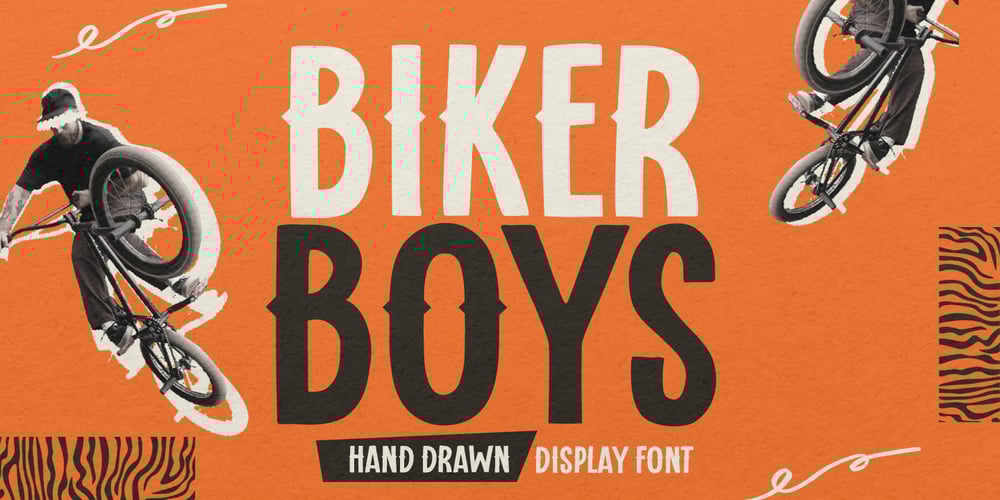
Bikerboys Font Family was designed by Abdul Malik Wisnu, Anang Fibriyanto and published by Gassstype. Bikerboys contains 1 styles and family package options. Hello Everyone, introduce our new product Font Biker Boys This Is Hand Drawn Display Font.This is a Textured Natural Style and classy style with a clear style and dramatic movement.This font Biker Boys is great for your next creative project such as logos, printed quotes, invitations, cards, product.